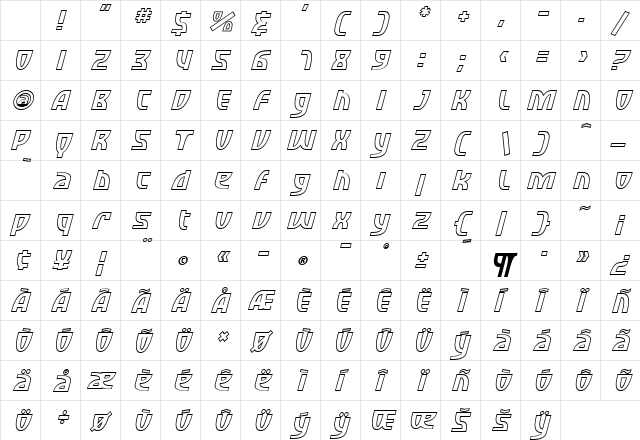
Complete SF Retroesque Outline Italic glyph index. Displaying only characters natively supported by SF Retroesque Outline Italic font.
SF Retroesque Outline wears its vintage influences proudly, with letterforms that recall mid-century signage, classic packaging, and nostalgia-driven design. The slanted form adds forward momentum and visual energy.
Font Pairing: Combine SF Retroesque Outline with a simple slab or neutral sans - period-accurate companions reinforce the vintage feel without competing for attention.
Pro Tip: Lean into SF Retroesque Outline's period character by pairing it with aged paper textures, muted colour palettes, and vintage illustration styles.